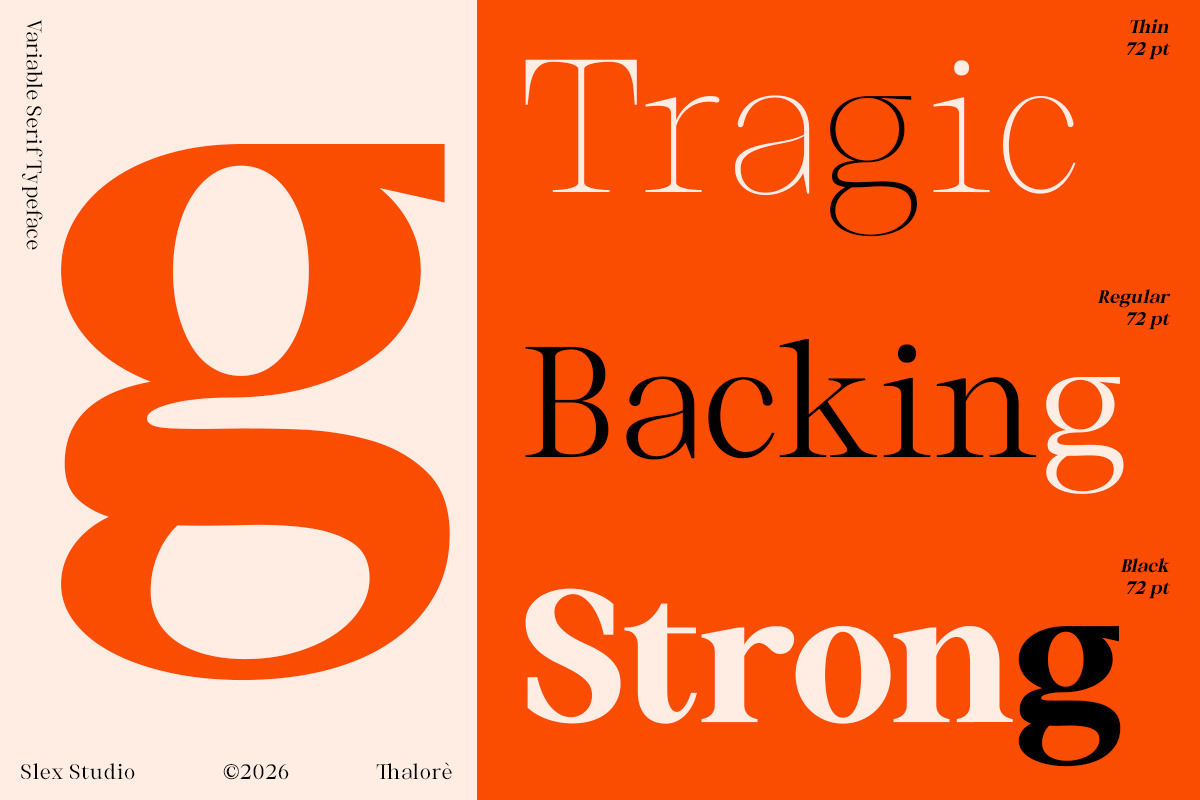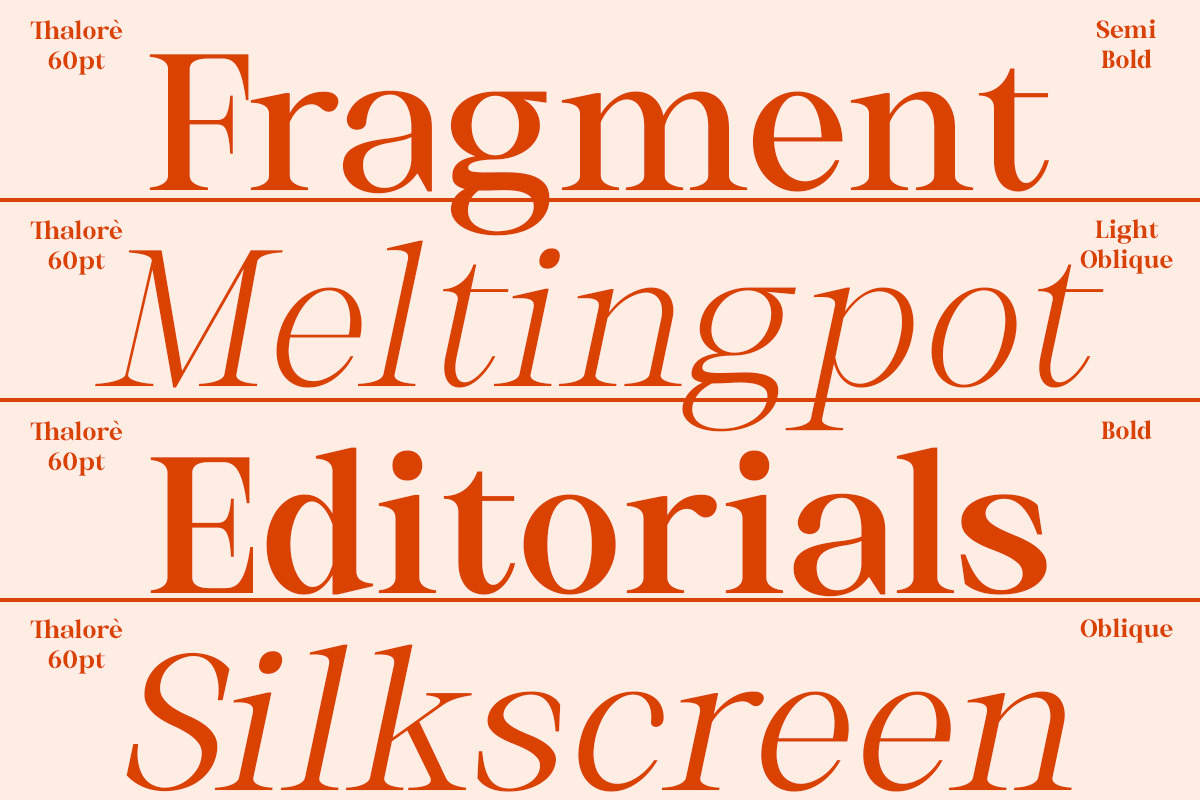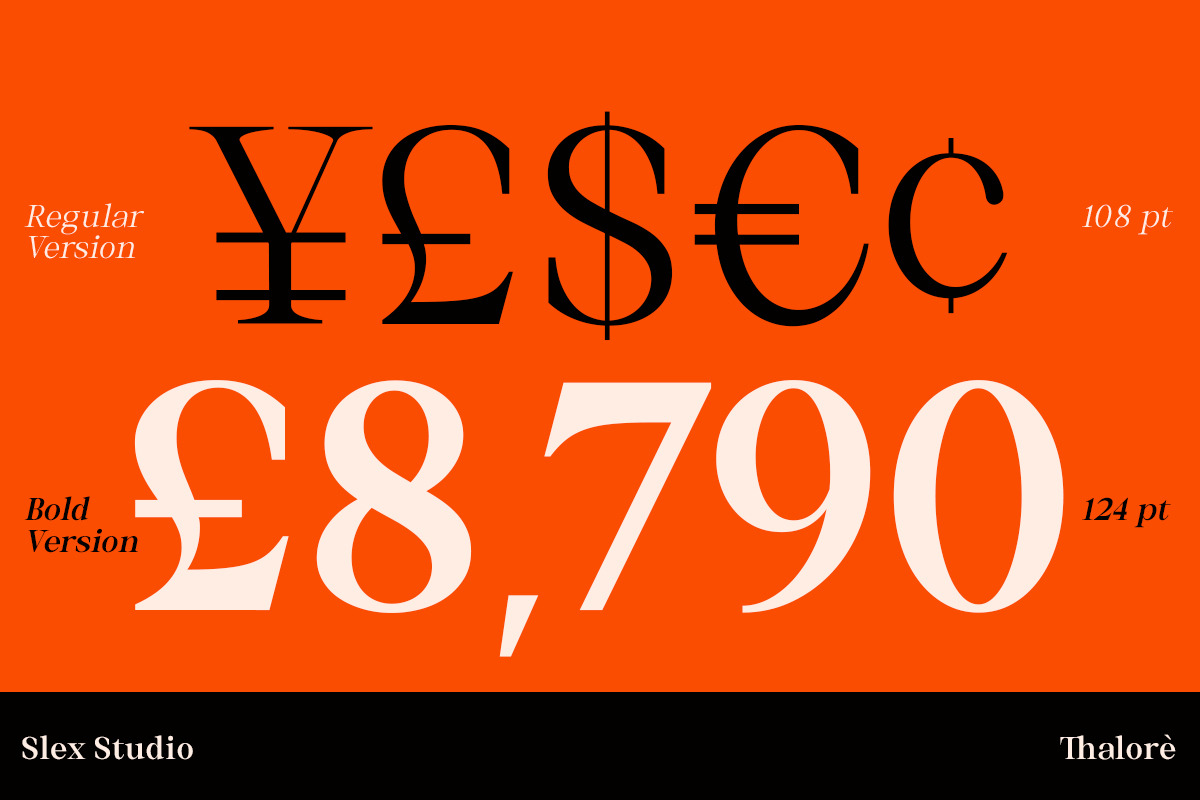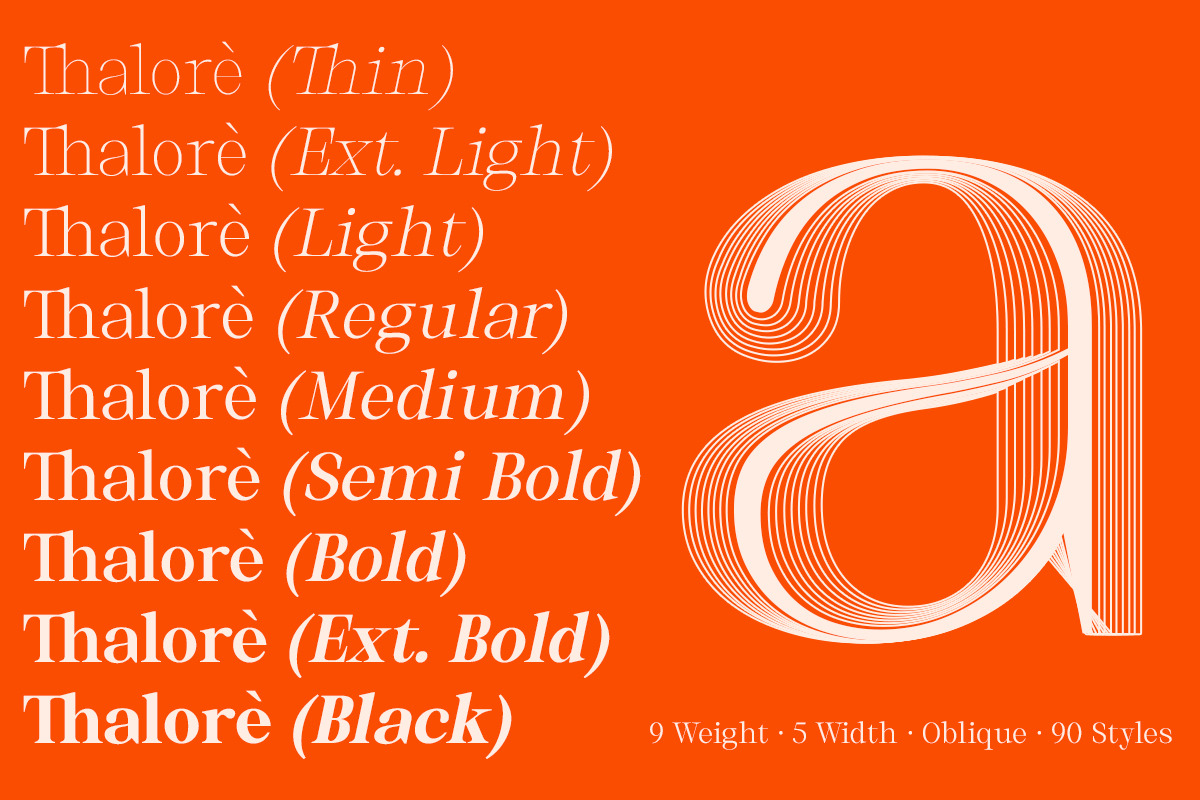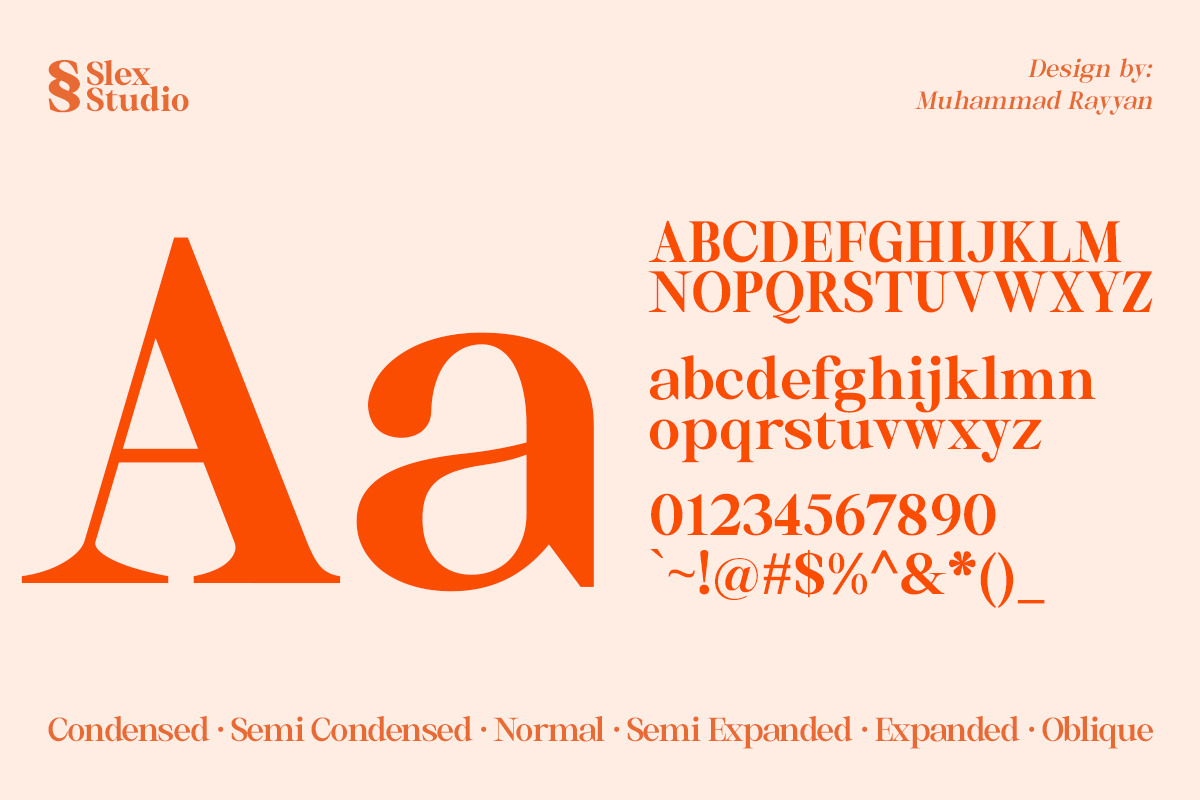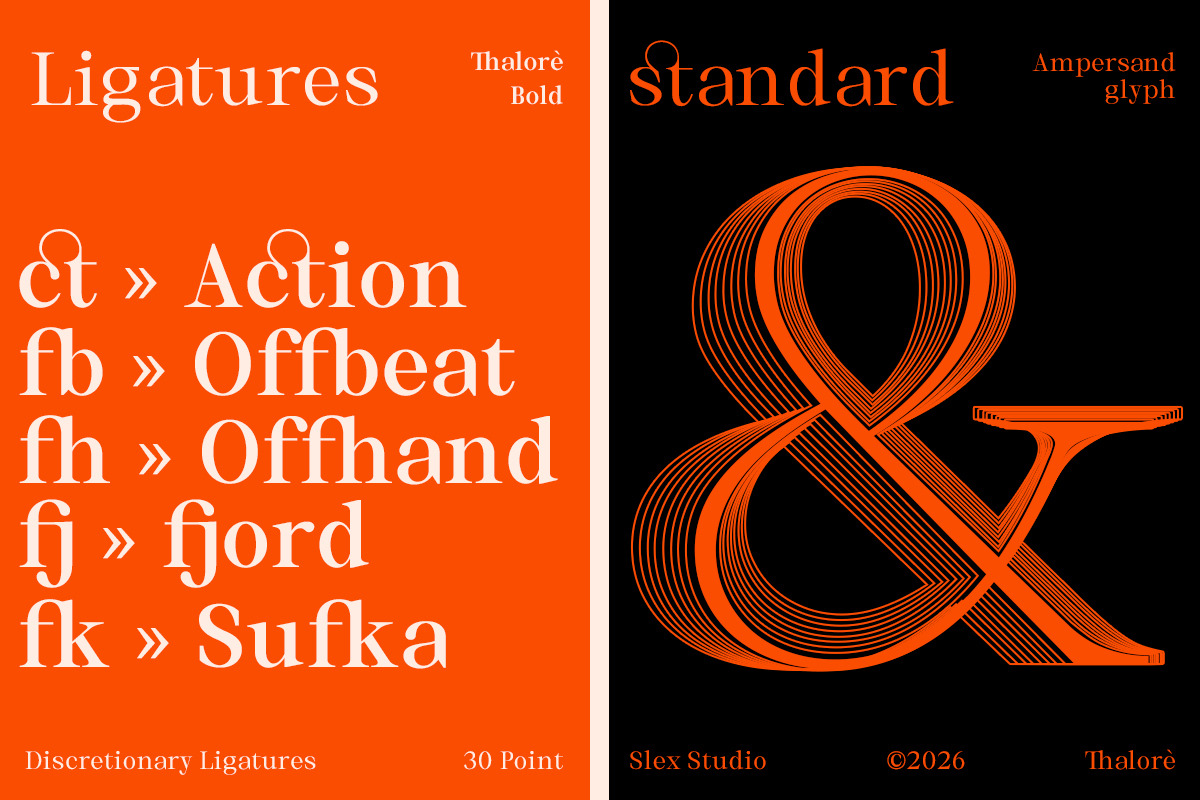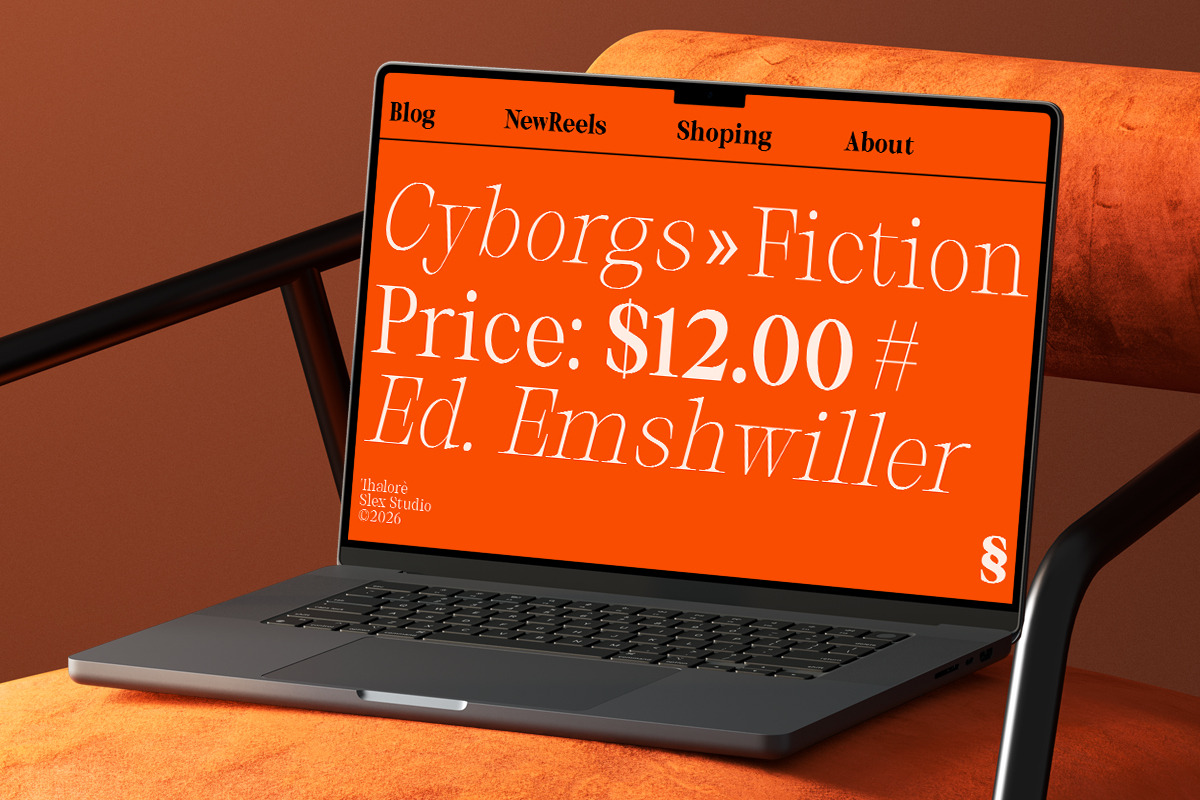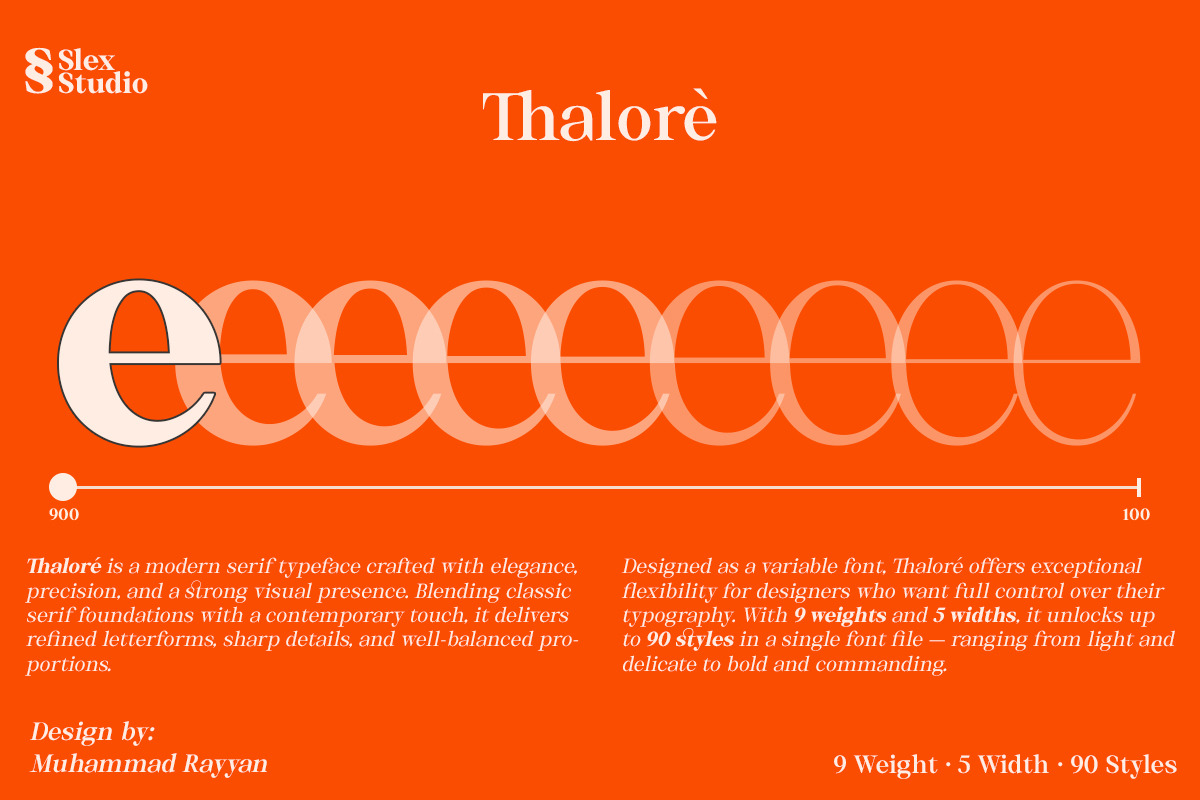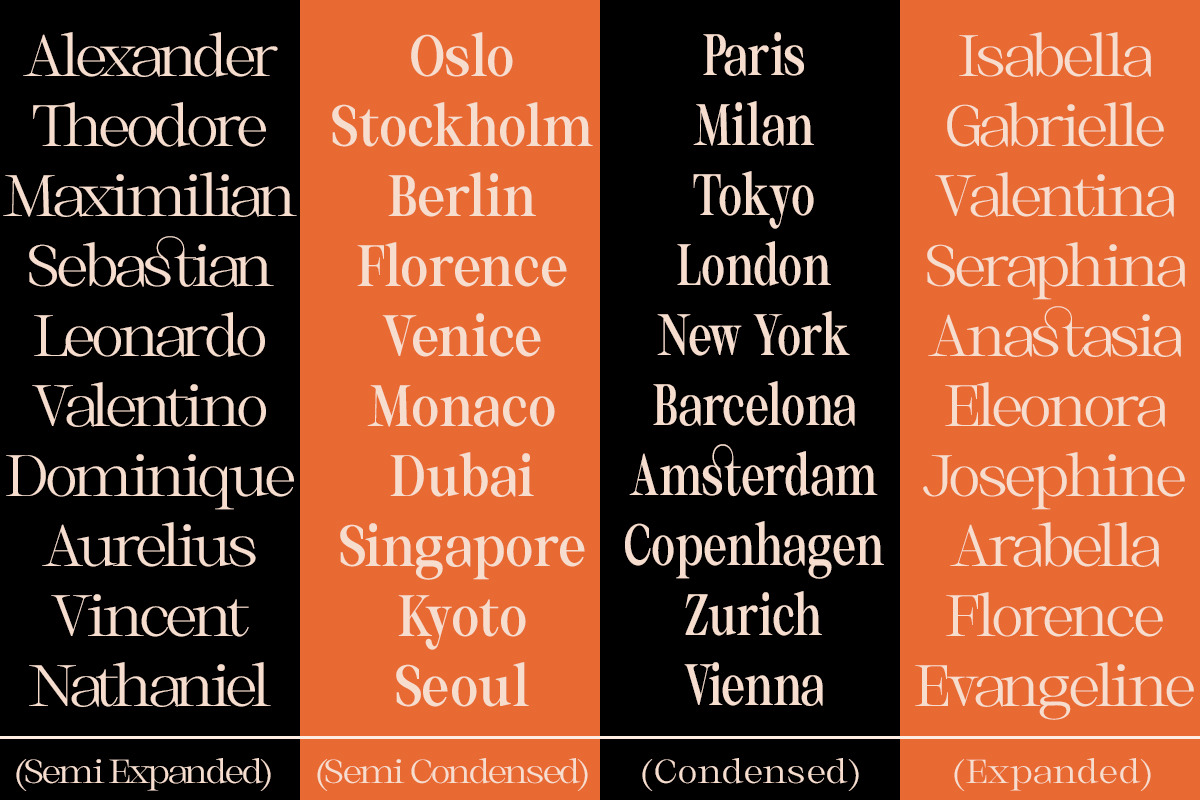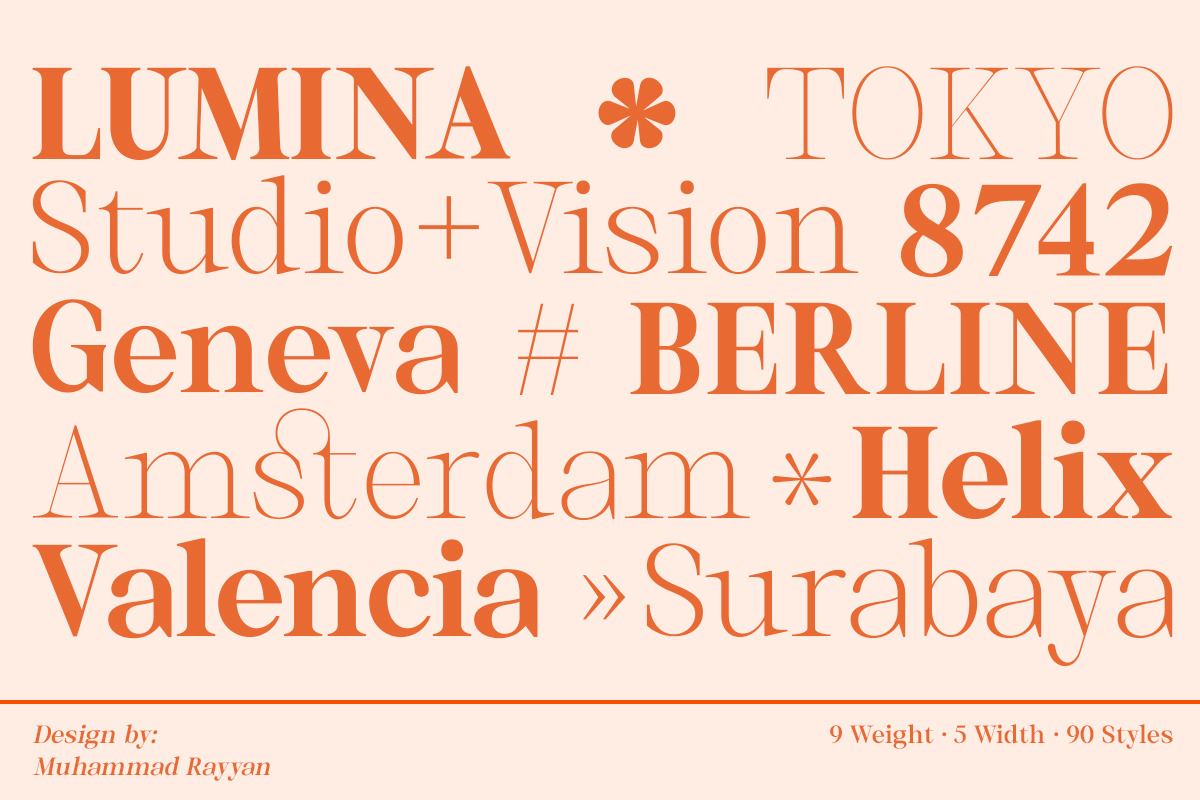
Thalore
Thaloré is a modern high-contrast serif designed with a focus on clarity, elegance, and flexibility. Its refined letterforms and balanced proportions allow it to perform equally well in both display and editorial settings, maintaining a consistent and polished appearance across different sizes. Built as a variable font, Thaloré provides precise control through weight and width axes, enabling a wide range of typographic expression within a single file. With 9 weights and 5 widths, totaling 90 styles, it offers versatility for various design needs while preserving harmony and readability. Thaloré is well suited for editorial layouts, branding, logos, packaging, and web typography, making it a reliable choice for projects that require a clean and sophisticated serif voice.